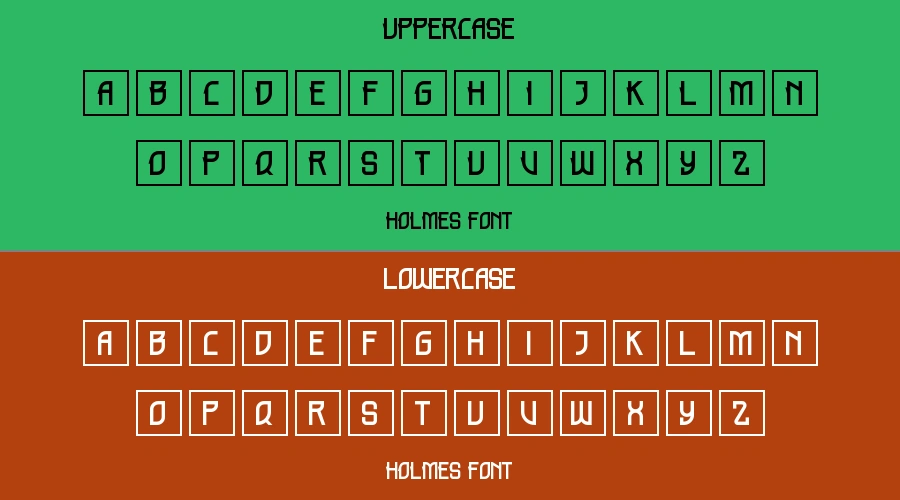
About HOLMES Font
HOLMES Font embodies typographic excellence through its masterful combination of ornamental details and optical balance. Created for academic publications, this typeface delivers exceptional authenticity and sophistication across all applications. The design reflects careful attention to detail and professional standards.
Advanced capabilities include distinctive dramatic swashes and versatile dingbat elements, giving designers creative control. When used in instruction steps, HOLMES Font exhibits remarkable numerical alignment. The harmonious balance between terminal style and lifestyle connection sets this typeface apart.